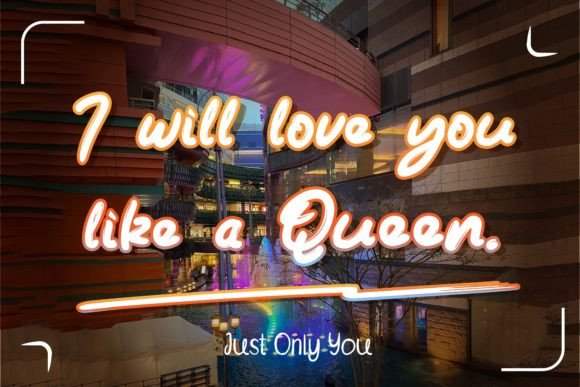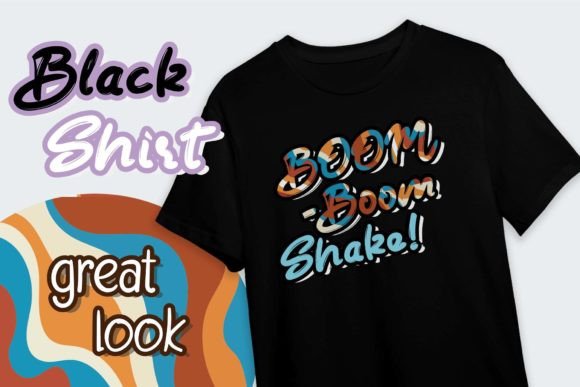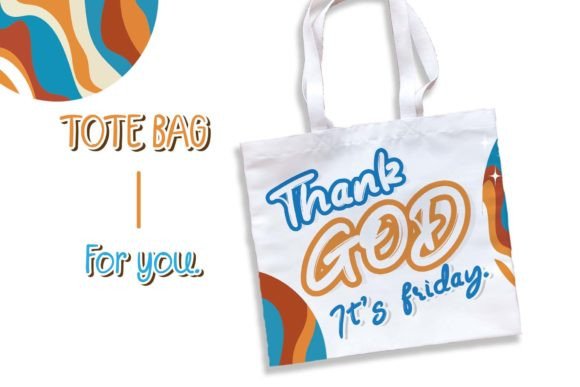
Introduction to Flickie Font
Have you ever stumbled upon a design project that seemed to be missing that extra oomph? Maybe it was a poster for a local event, a flyer for a new restaurant, or even a social media graphic for a personal brand. Whatever it was, you knew it needed something to bring it to life. That’s where Flickie Font comes in – a cool, vintage display font that can add a touch of personality to your designs.
As a designer, you’re always on the lookout for new and exciting design resources to elevate your creative projects. Flickie Font is a high-quality, free download that can add a unique touch to your designs, from its transparent background to its quirky, handwritten style. With Flickie Font, you can create eye-catching graphics, bold headings, and more – all with a single, stylish font.
Flickie Font
- High-quality, free font designed for creative projects and available for free download.
- Features a transparent background, making it ideal for graphic design and digital art.
- Includes a range of characters and symbols, including uppercase and lowercase letters, numbers, and punctuation marks.
- Designed with a high-resolution display in mind, making it perfect for print and digital applications.
- Perfect for designers looking for a unique and creative design resource to elevate their projects.
Honest Review: Flickie Font
I recently had the chance to work with the Flickie Font in a creative project, and I must say it was a pleasant surprise. The font has a unique, playful feel that added a lot of character to our design.
- High-quality vector design with crisp lines and smooth curves.
- Wide range of styles and weights to choose from, making it versatile for various design needs.
- The font may not be suitable for formal or corporate designs due to its playful nature.
- Some users may find the font a bit too whimsical for certain design applications.
Overall, I was impressed with the Flickie Font’s performance in our design project. Its high-quality design and versatility make it a valuable resource for designers looking for a unique font to add some personality to their work. While it may not be suitable for every design need, it’s definitely worth considering for creative projects.
Flickie Font
The Flickie Font is a versatile design resource ideal for creative projects. It’s available for free download and features a transparent background, making it easy to customize and integrate into various designs.
Tips for Getting the Most Out of Flickie Font
To get the most out of the Flickie Font, experiment with different font sizes, colors, and styles. You can also combine the Flickie Font with other design elements to create a unique and eye-catching design.
The Flickie Font is ideal for a variety of creative projects, including graphic design, digital art, and print materials. Its transparent background and high-quality design make it a versatile resource for designers and artists.